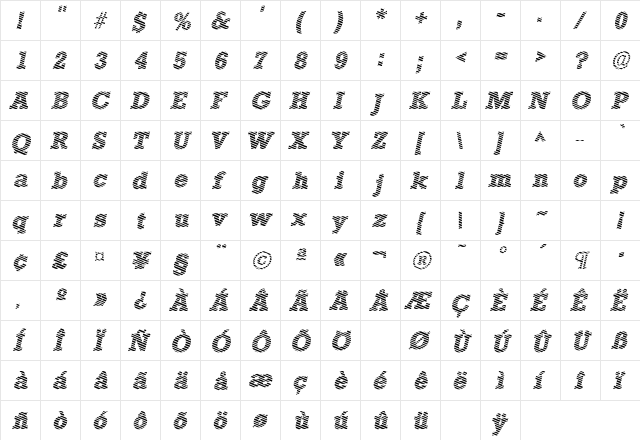
Corrugated SF Bold Italic Font Preview
Design Context for Corrugated SF Typeface
Corrugated SF offers clean, dependable letterforms without strong stylistic allegiance, making it a practical choice for designers who need flexibility. The slanted form adds forward momentum and visual energy. The heavy weight commands attention and anchors typographic hierarchies.